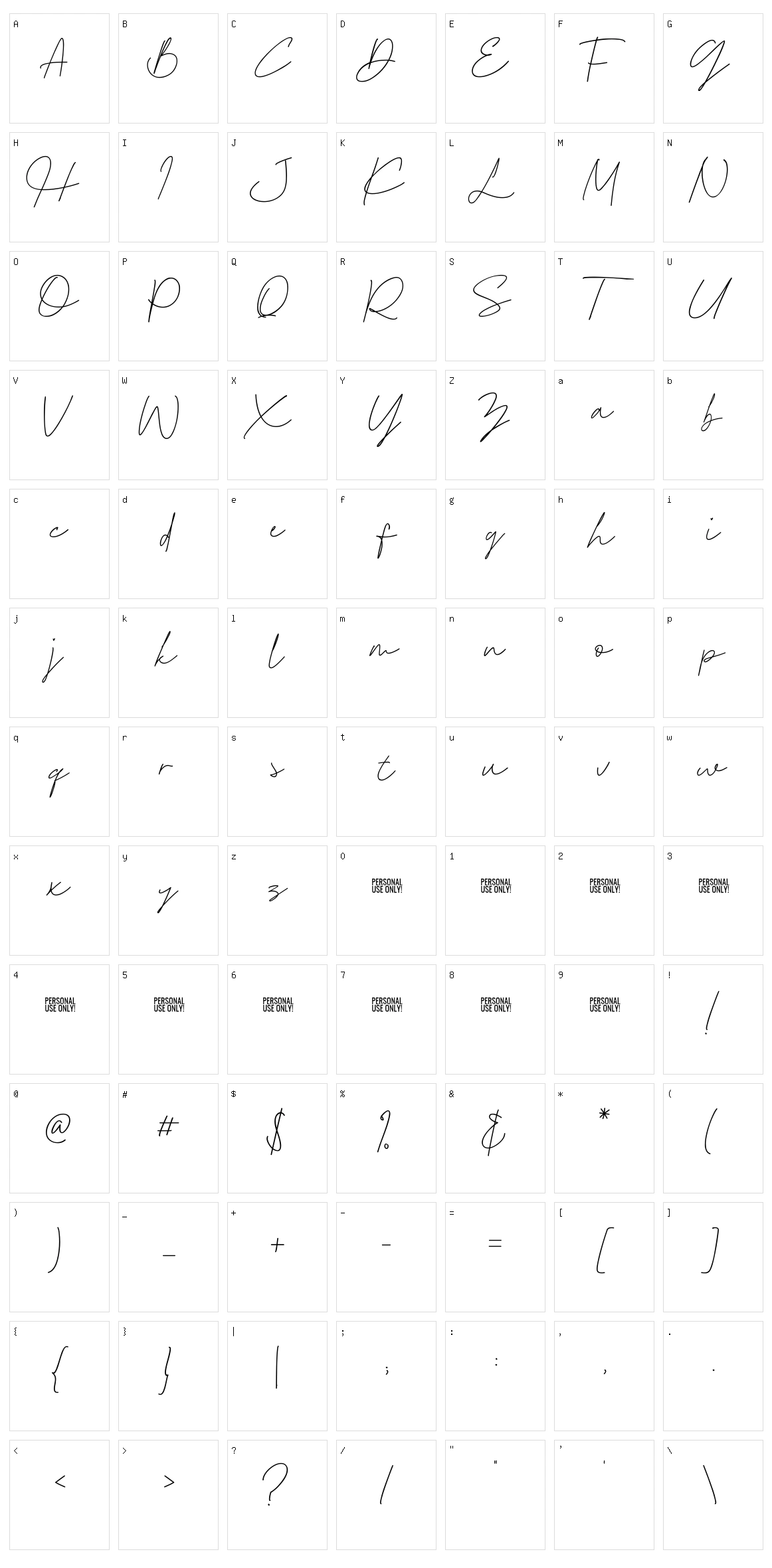
The free font Love Jessica is carefully designed by Ketapel Creative, showcasing a thoughtful balance of creativity and usability and falls under the Script font style. When you download the ZIP file, it contains only 489.59 KB of font files, making it lightweight and quick to download. Please review the license details below to understand permitted usage and distribution rights. If license information is not available, we recommend using this font for personal projects only or contacting the author directly for commercial usage permissions.